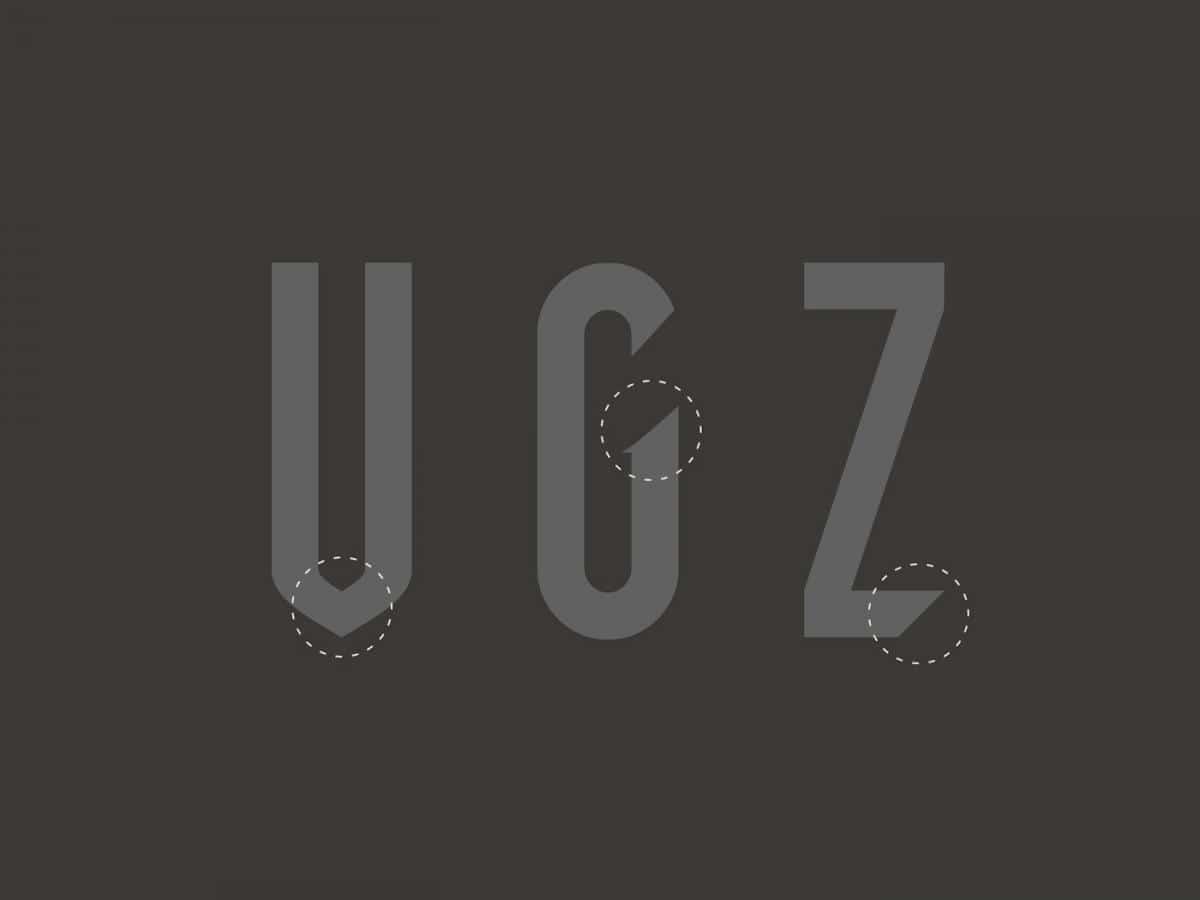
POGO is display fonts. Its style is geometric, and its letterforms are all-caps, a minimal and contemporary typography for today needs. The functionally with geometric form, angled touch with modular stroke interpreted into visual language.